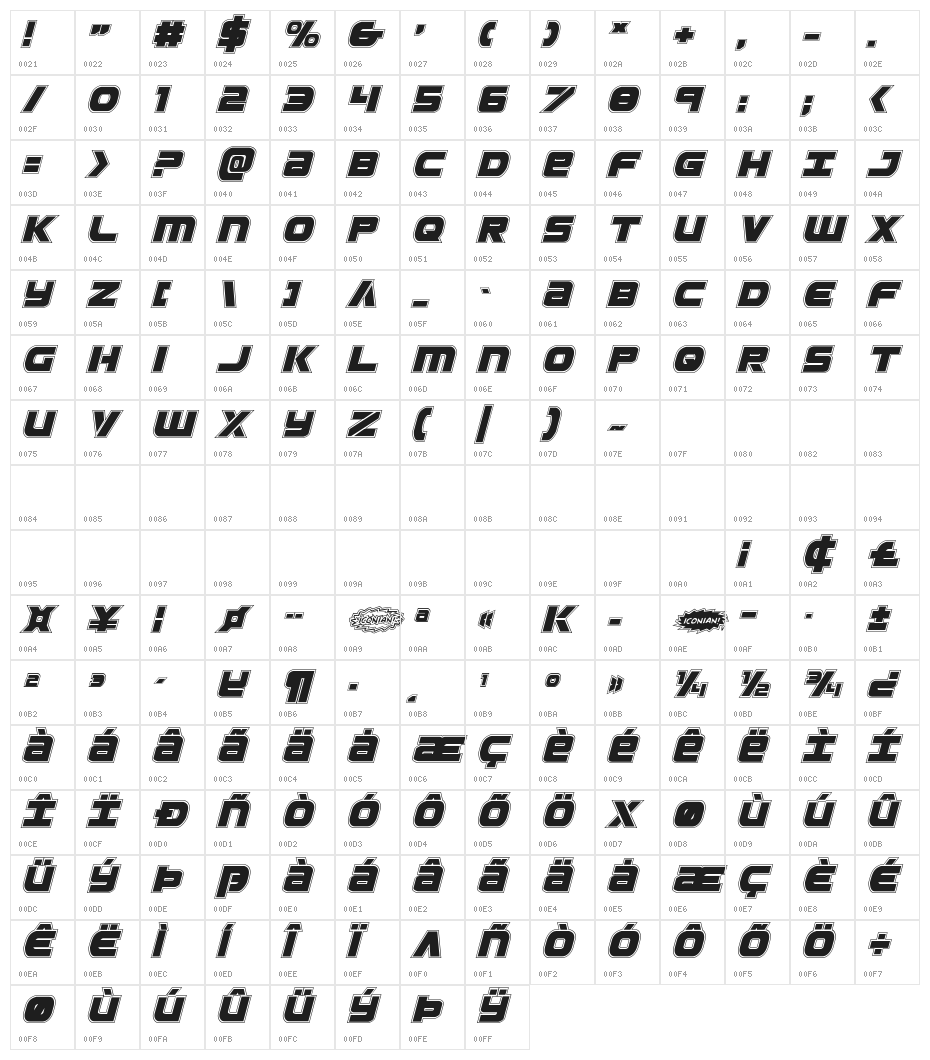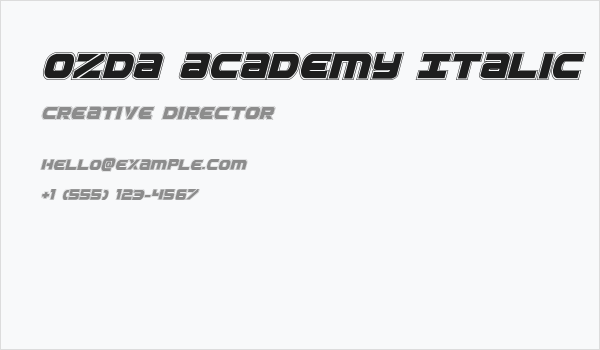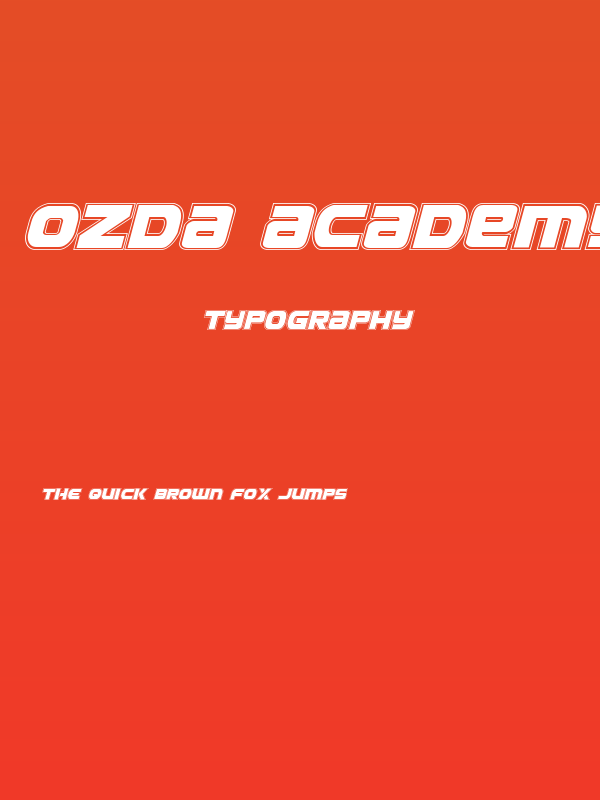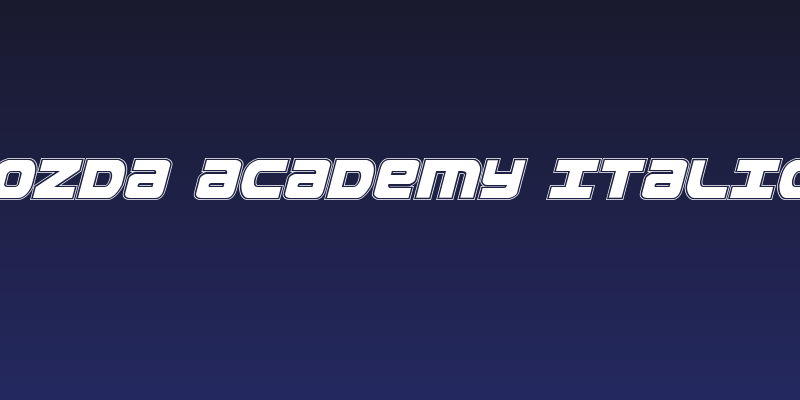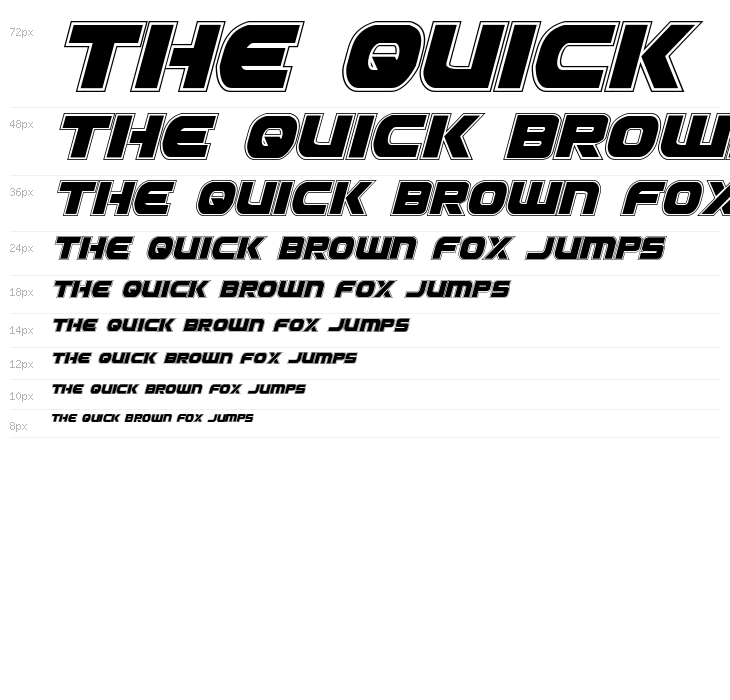
Ozda Academy Italic Font
Ozda Academy Italic Description
This font features a bold and dynamic style with a distinct italic slant, giving it a sense of motion and energy. The characters are outlined with a thick border, adding a three-dimensional effect that enhances its visual impact. The design is modern and sleek, with a futuristic touch that makes it stand out. The uppercase and lowercase letters maintain a consistent style, while the numerals and special characters are crafted to match the overall aesthetic. This font is ideal for projects that require a strong and attention-grabbing typeface.
| Proposed Projects | Ideal for sports branding, futuristic designs, posters, and digital media. |